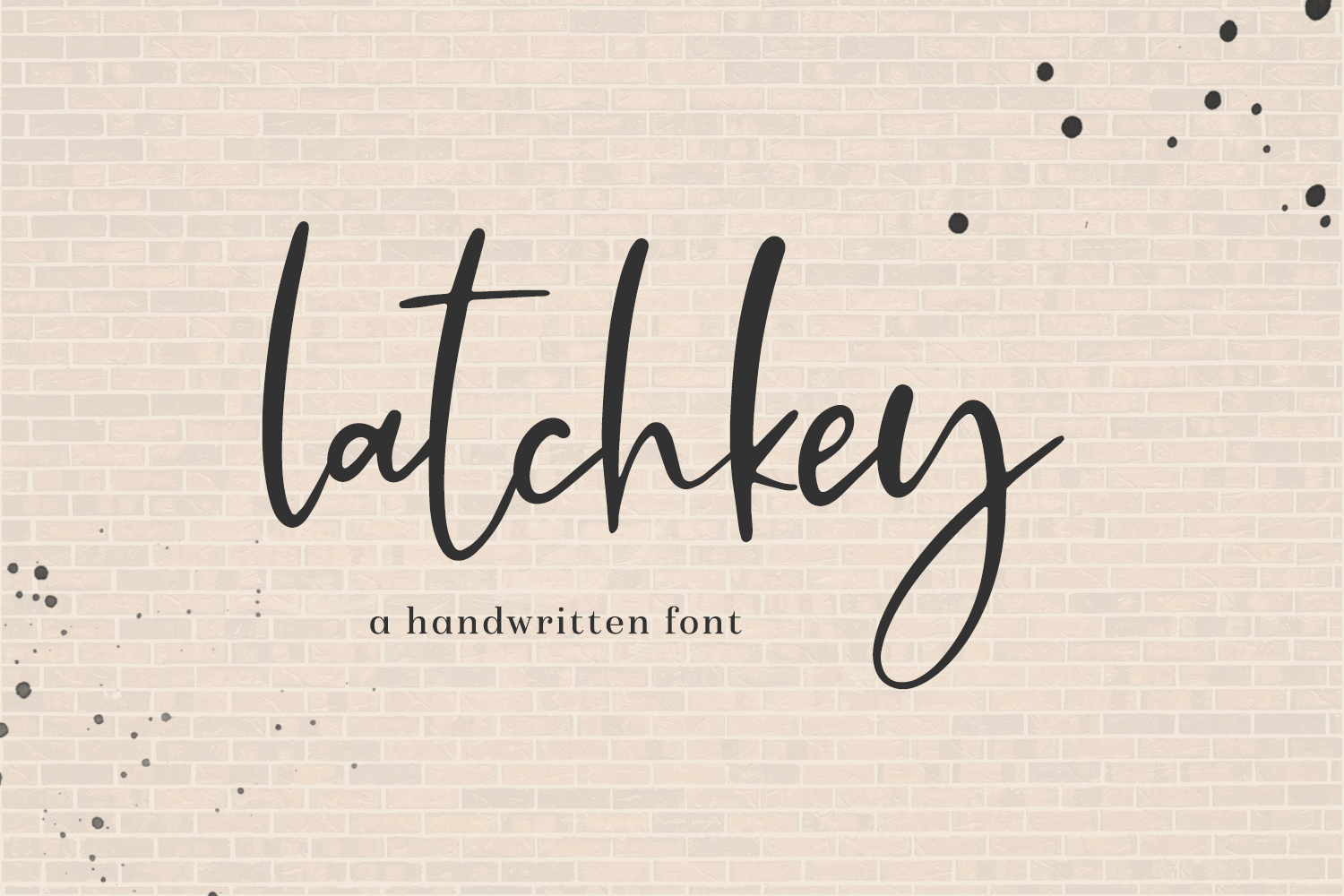
Introducing Latchkey Script, a handwritten signature style font. This stylish font features a messy, casual look and includes a full set of lowercase alternates and some common double letter ligatures.
Latchkey Script is best for:
- website design + website accents - think design blogs, travel blogs, fashion blogs, & more
Latchkey includes:
- 26 lowercase alternates
- 14 double letter ligatures - bb, cc, dd, ee ,ff, gg, ll, mm, nn, oo, pp, rr, ss, tt